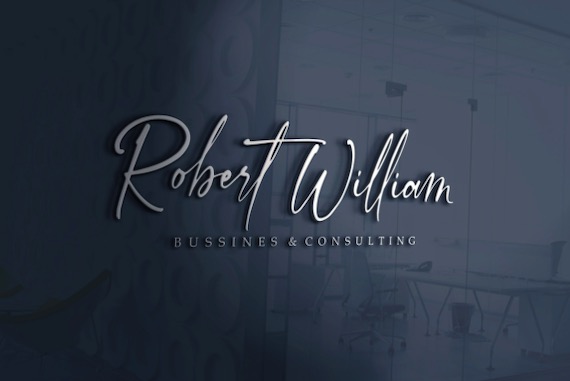
Anthery Collection Font, a great contemporary handwritten font with a luxury and elegant signature and script look. It was created and shared by Vilogsign Studio, with gorgeous Opentype features. It will make your design become more professional.
Anthery Collection Handwritten Font